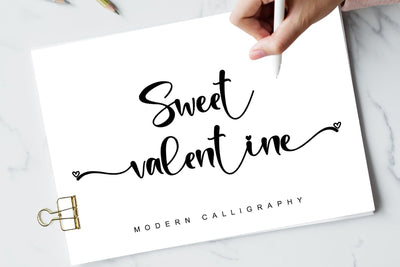
Sweet Valentine
Sweet Valentine feels incredibly elegant and flowing. It looks stunning on wedding invitations, thank you cards, quotes, greeting cards, valentine cards, logos, business cards, and every other design which needs a handwritten touch.
Whether you’re looking for fonts for Instagram or calligraphy scripts for DIY projects, Sweet Valentine will turn any creative idea into a true piece of art! This font is PUA encoded which means you can access all of the amazing glyphs and swashes with ease! It also features a wealth of special features including alternate glyphs and ligatures.